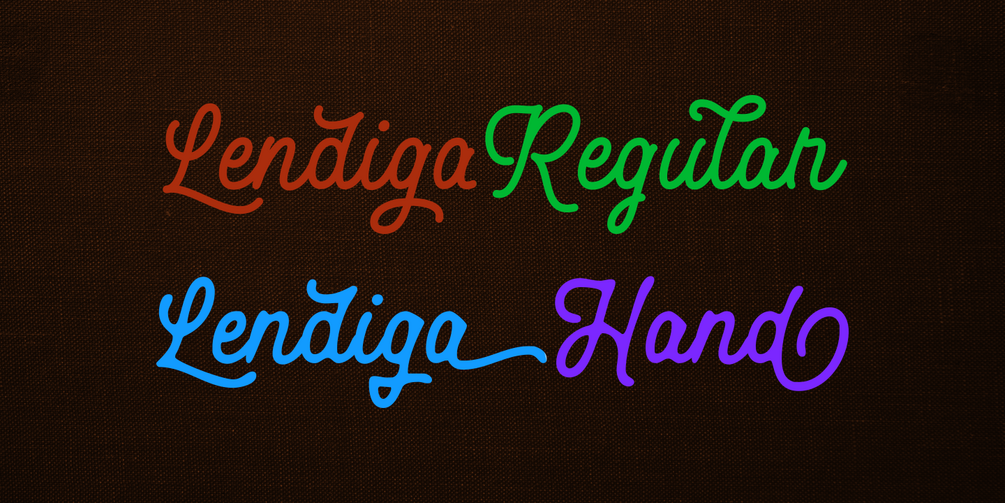
Lendiga Monoline
Lendiga is a new casual monoline typeface. It can be very personal because it is available in two versions, Lendiga Regular for subtle version and Lendiga Hand for rough version.
Containing more than 400 glyphs, Lendiga has several opentype features such as ligatures, contextual alternates, swashes and stylistic alternates including multilingual support, so you can more easily compose typography in your design.